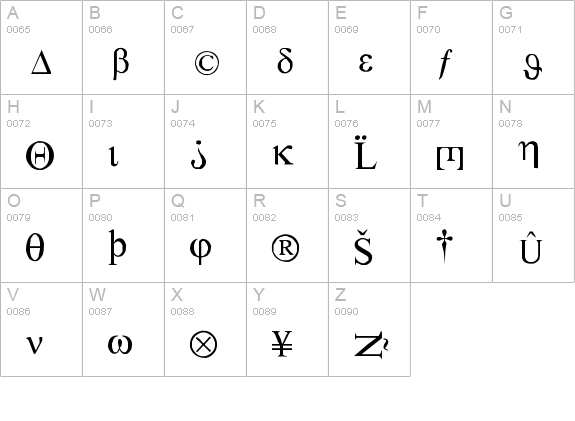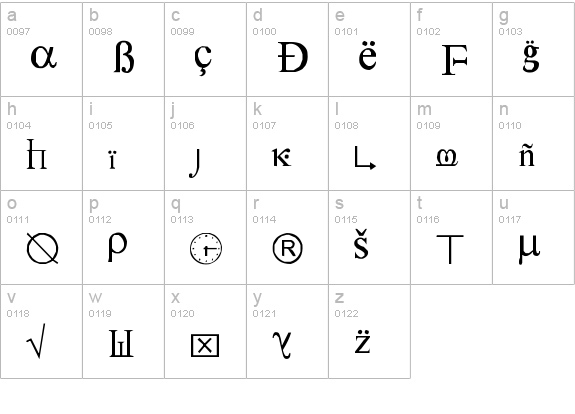
SymbolNerve Font Details
SymbolNerve font is a unique and eye-catching typeface that is sure to make a lasting impression. With its sleek and modern design, SymbolNerve is perfect for a wide range of projects, from branding and advertising to web design and social media graphics. This font features a bold and dynamic style that commands attention and adds a touch of sophistication to any text. What sets SymbolNerve apart is its versatility and ability to work well in both headline and body text. Whether you're looking to create a striking logo, a sleek business card, or a stylish website, SymbolNerve has got you covered. Best of all, SymbolNerve is available for free download at FontsMarket.com. So go ahead and give your projects a fresh and modern look with this stunning font. Download SymbolNerve today and let your creativity soar!